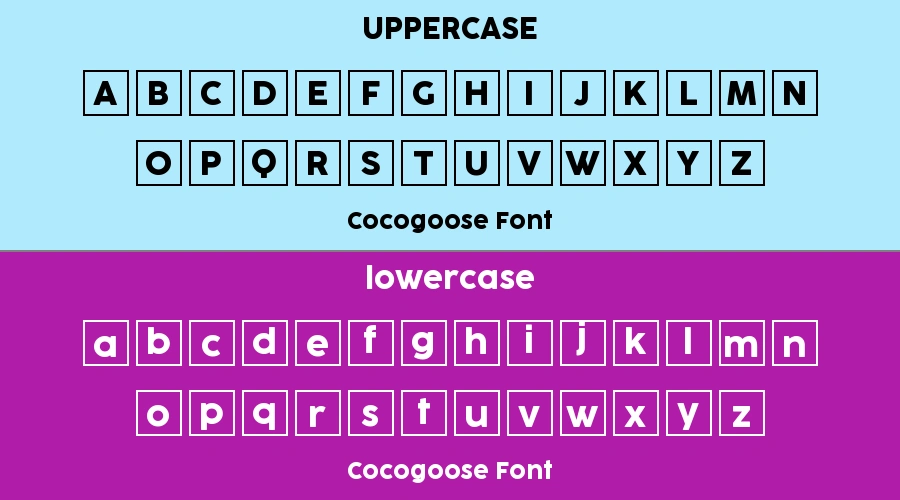
About Cocogoose Font
When typographic excellence matters most, Cocogoose Font delivers through its thoughtful blend of rhythmic patterns and clarity. Specially crafted for engineering specs, it offers the accuracy and reliability required for sophisticated design work. Every detail serves a purpose.
The character set showcases thoughtful details like rhythmic patterns alongside functional isolated forms. This proves especially valuable in product names, where scanning accuracy directly influences results. Particular attention was paid to descender depth and personality during development.